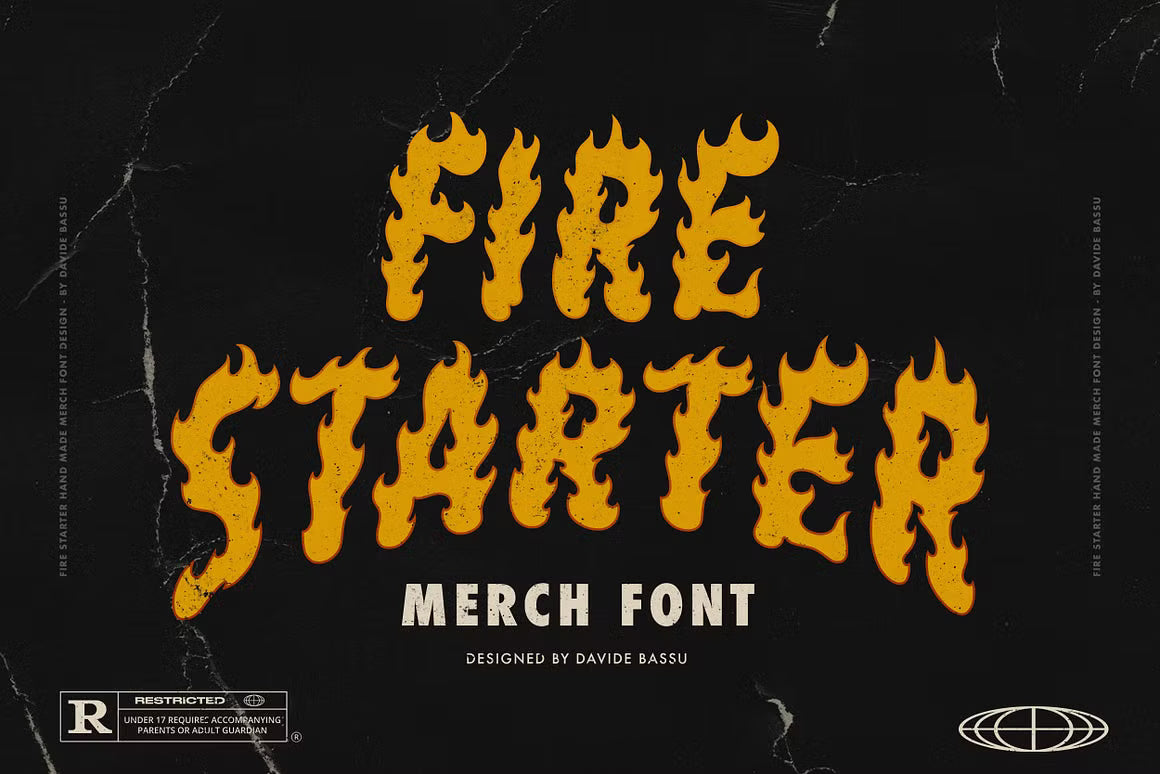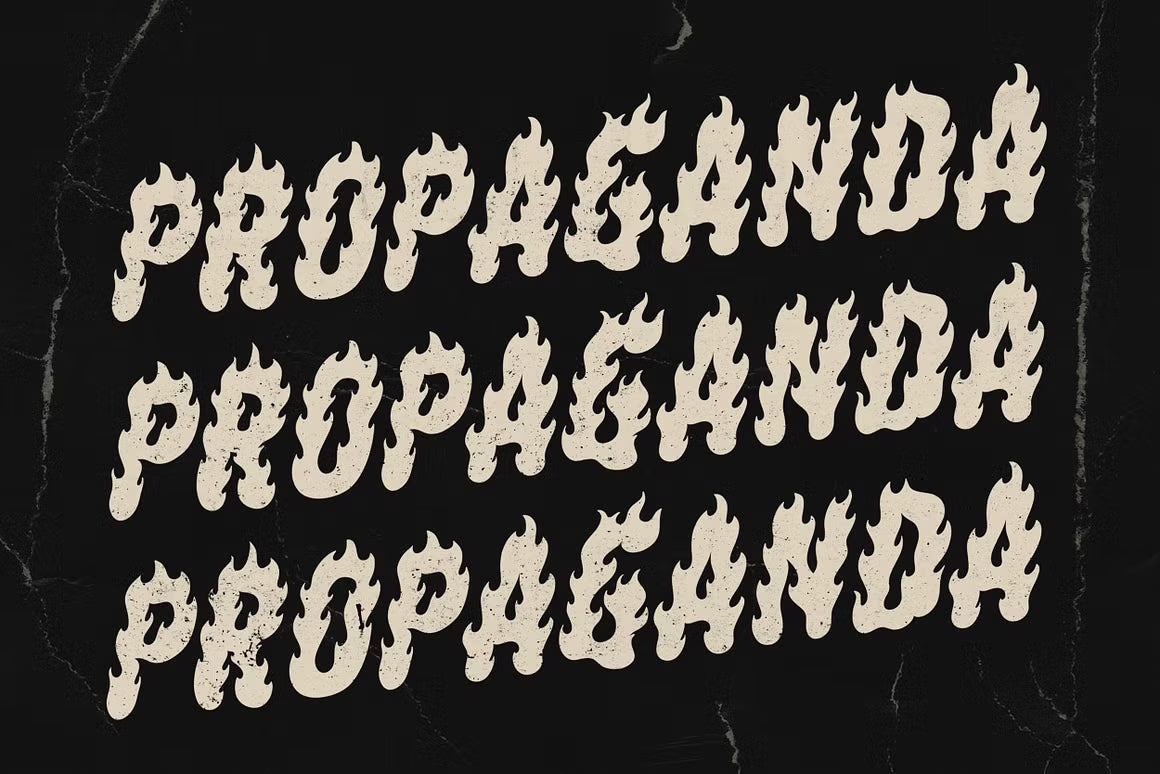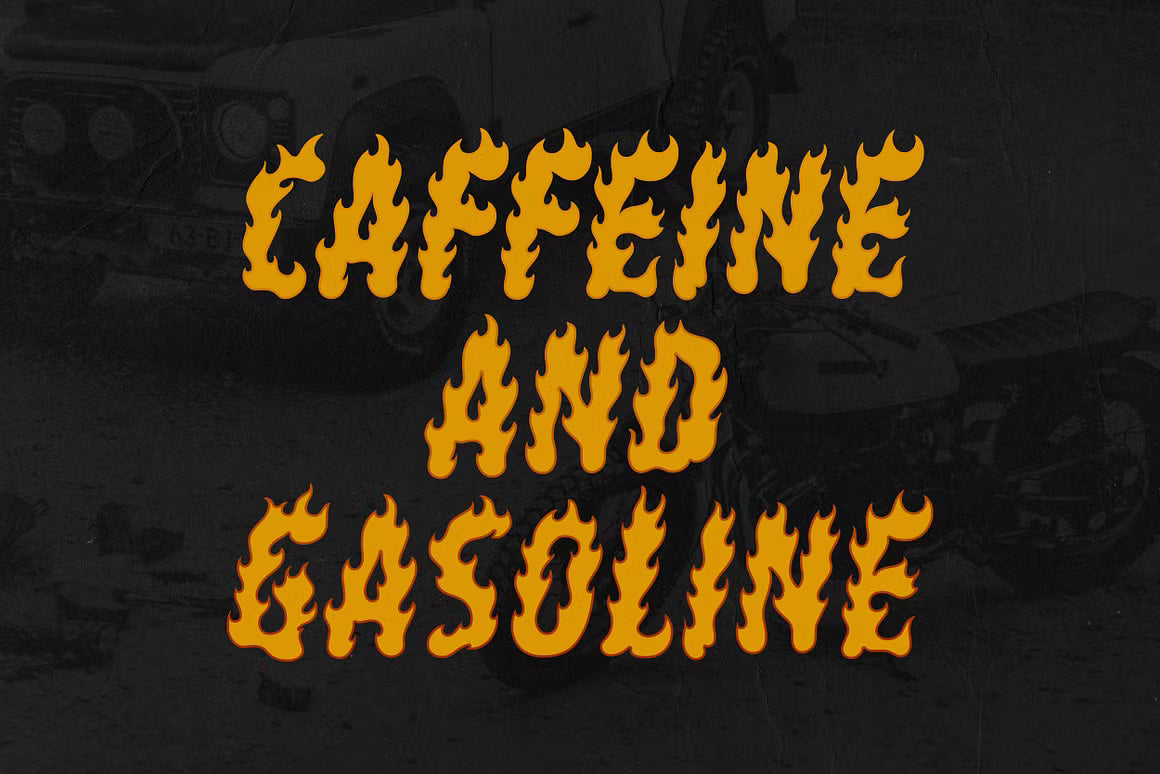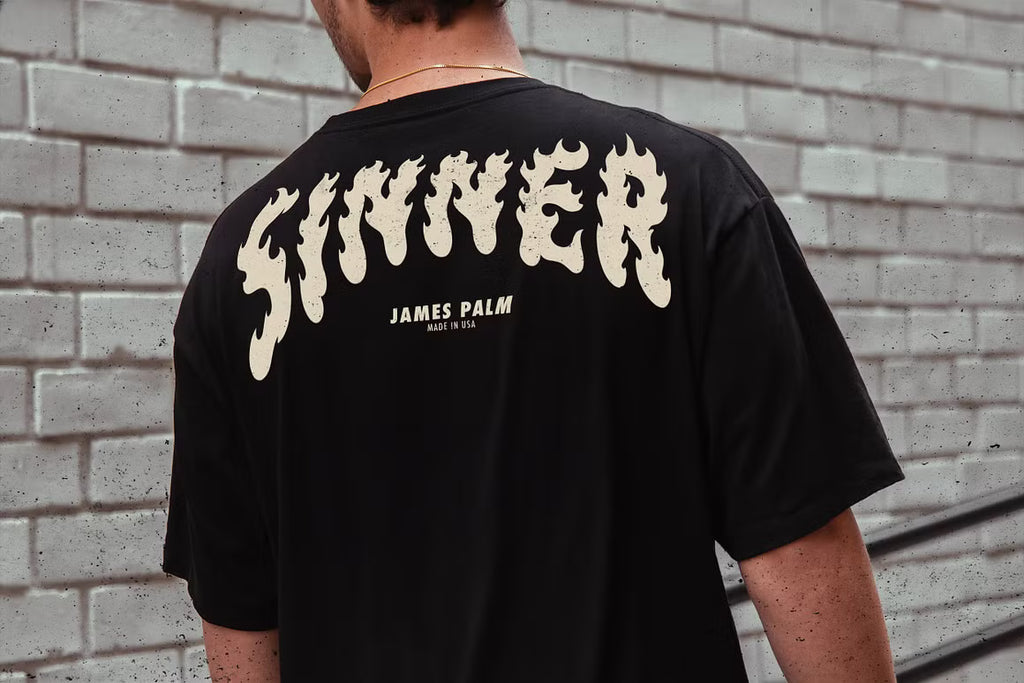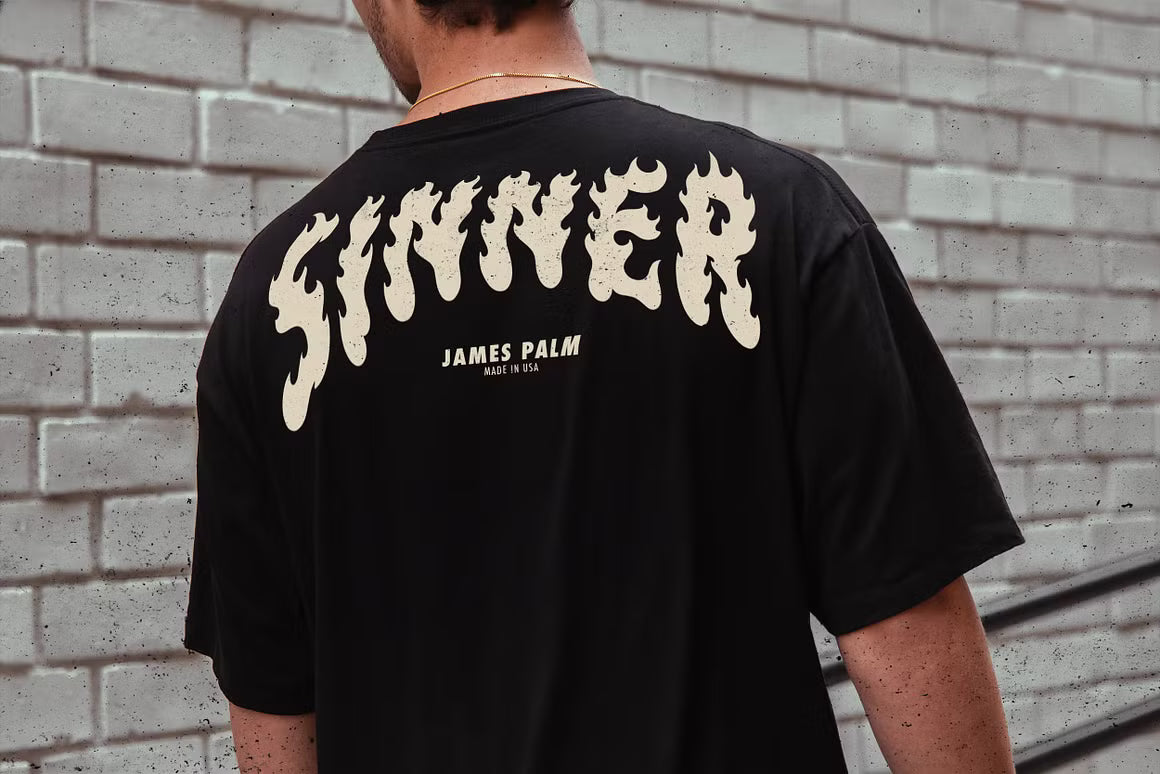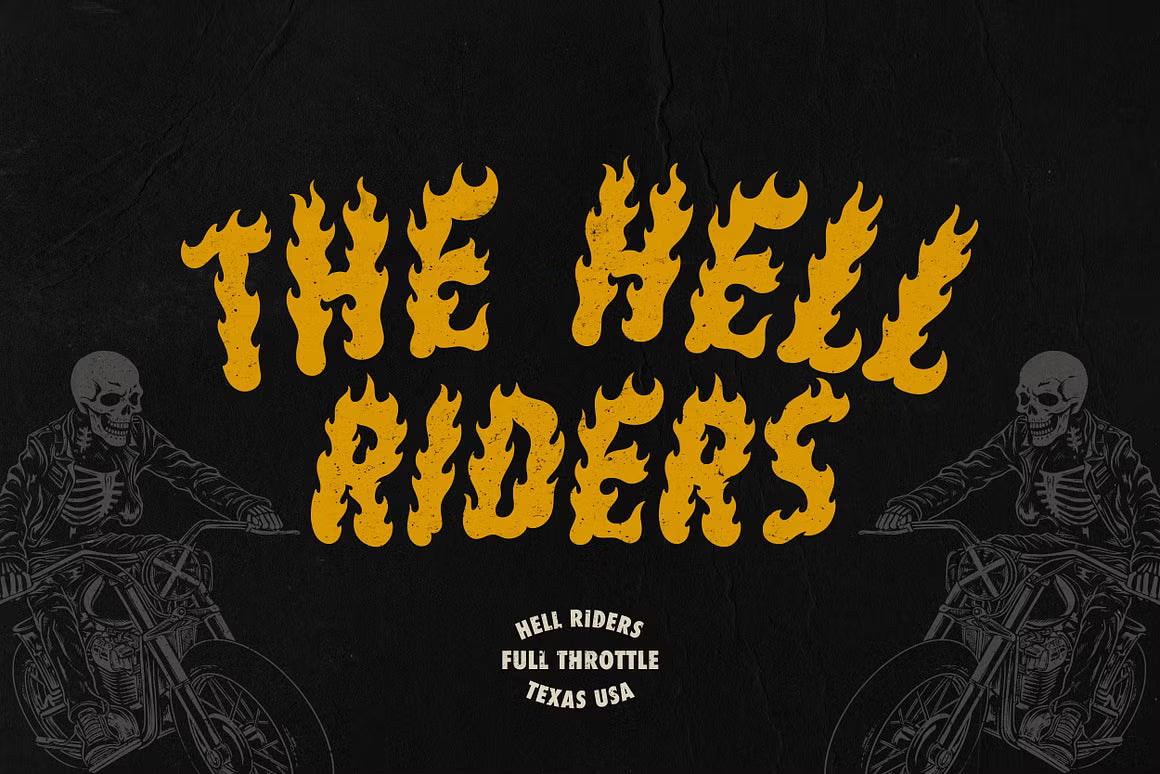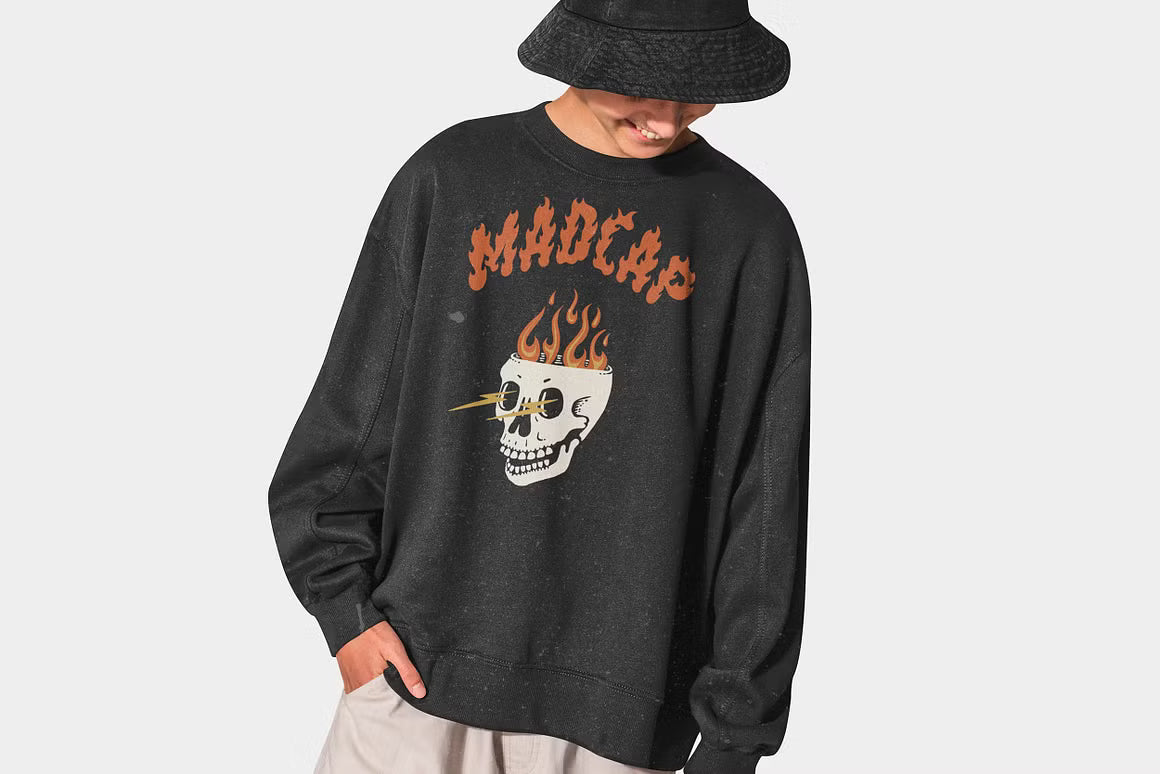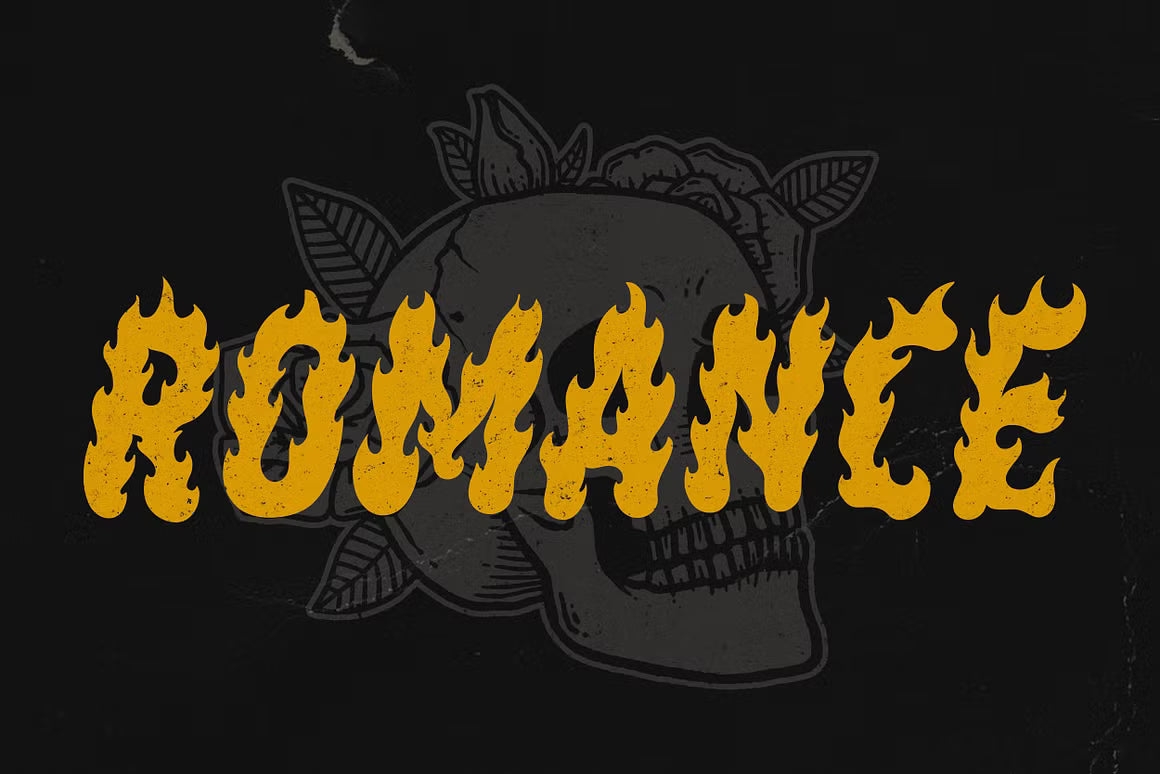
Firestarter
Fire Starter Merch Font is a bold, fiery display typeface built for high-impact merch and streetwear designs. With its aggressive edges, strong character, and energetic attitude, this font screams rebellion and power — perfect for band merch, urban apparel, posters, and anything that needs to grab attention instantly.
Whether you're designing a limited drop or building an entire brand identity, Fire Starter delivers that raw, adrenaline-fueled vibe that stands out on hoodies, tees, and beyond. Its heavy presence and unique letterforms make every word feel like it's ready to ignite.
A must-have font for creators who want their designs to burn bright and leave a mark.
Fire Starter Merch Font